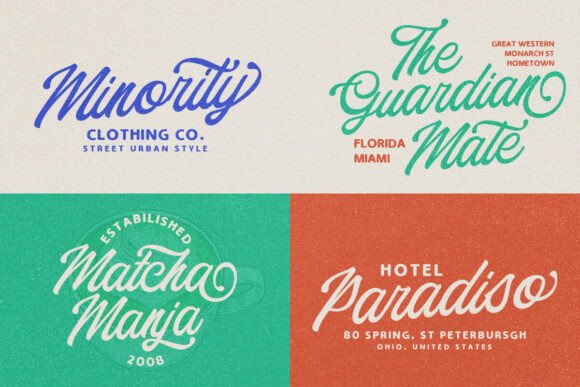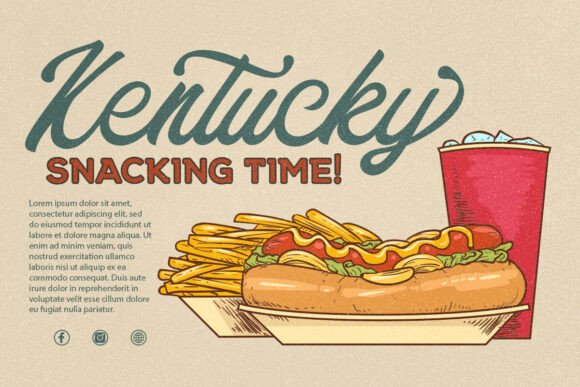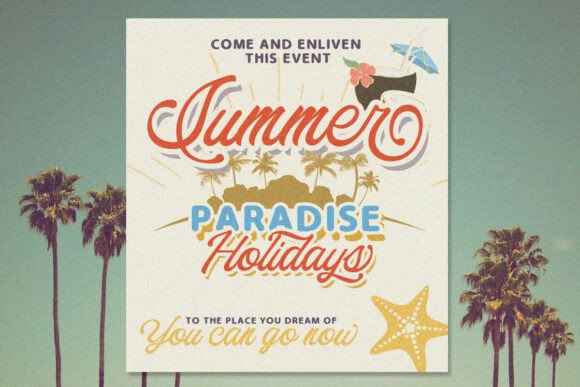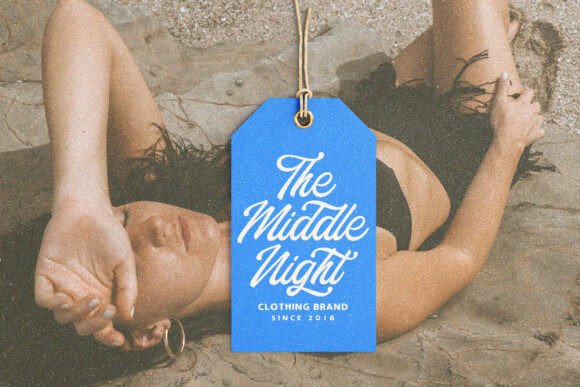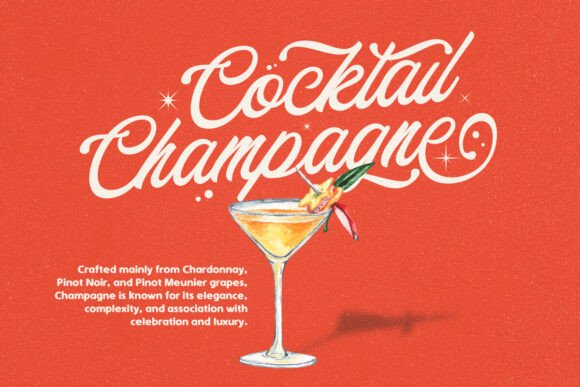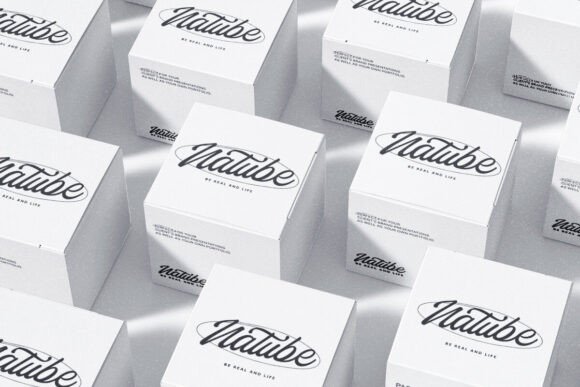
Introduction to Saturide Script Font
Saturide Script Inspired by Modern Vintage & Retro styles, and a combination of old American traditional style.
Saturide Script allows you to create handwritten letters instantly and is very practical Ideal for logos, handwritten quotes, product packaging, headers, posters, merchandise, social media & greeting cards.
Key Features of Saturide Script Font